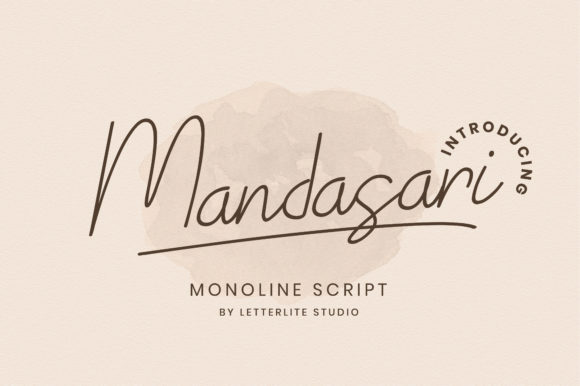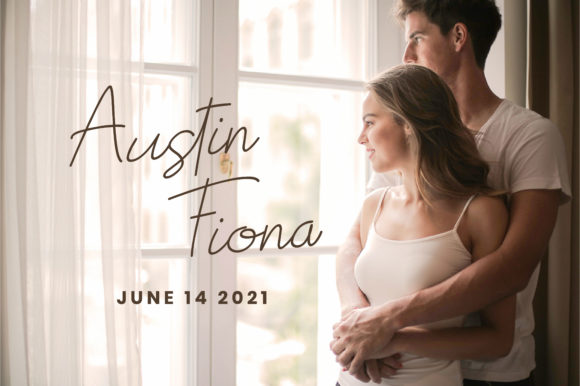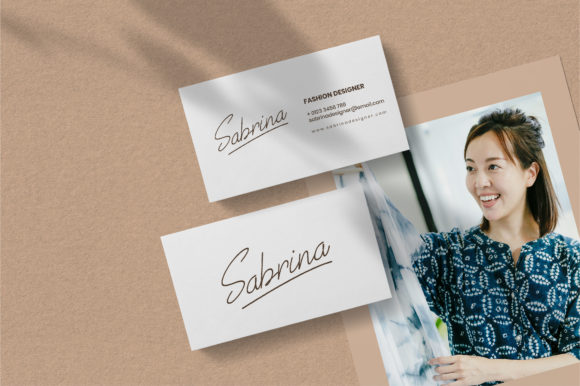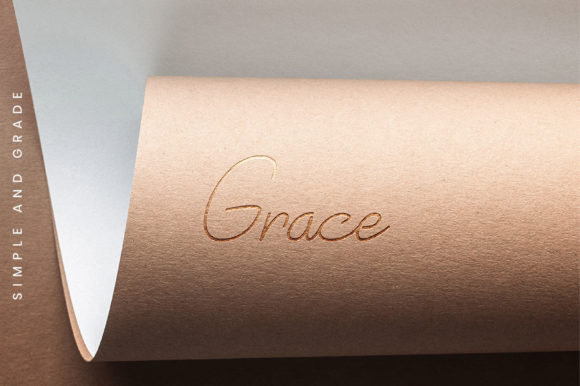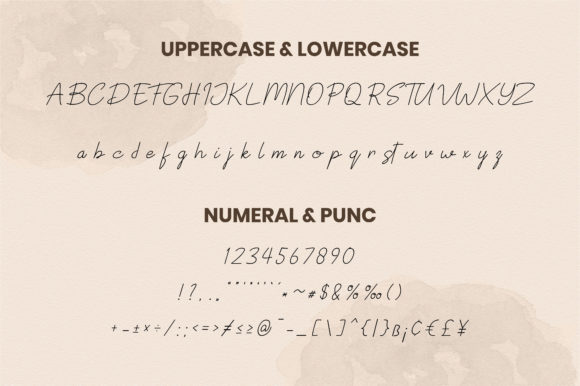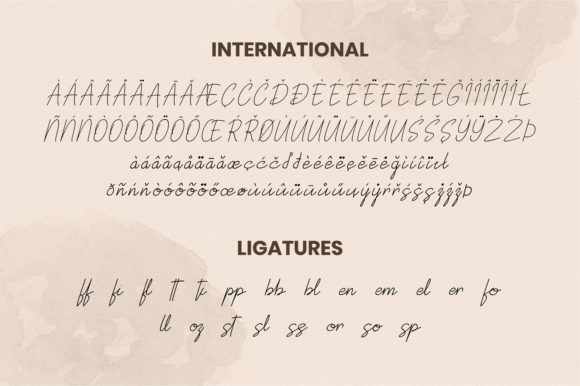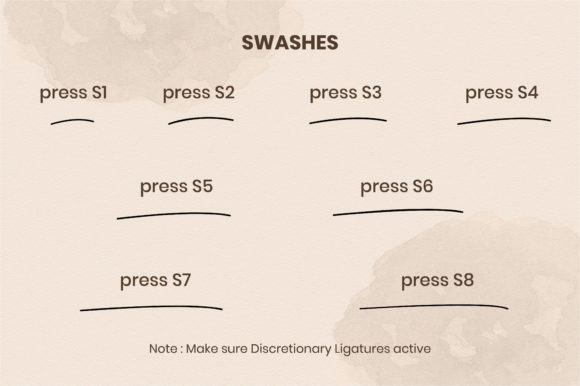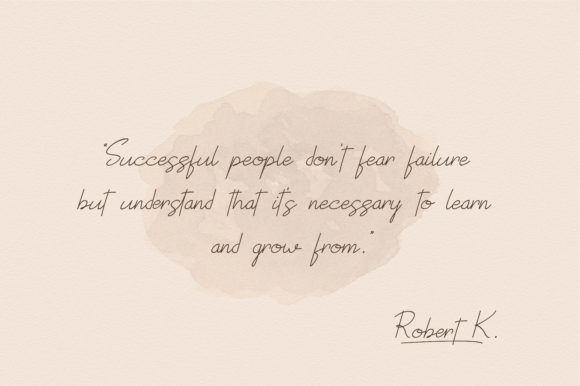
Mandasari Script Font
About Mandasari Script Font
Mandasari Script is a stylish and delicate script font. It has a clean, thin and smooth vibe. Fall for its ravishing style and use it to create gorgeous wedding invitations, beautiful stationary art, eye-catching social media posts, and much more!